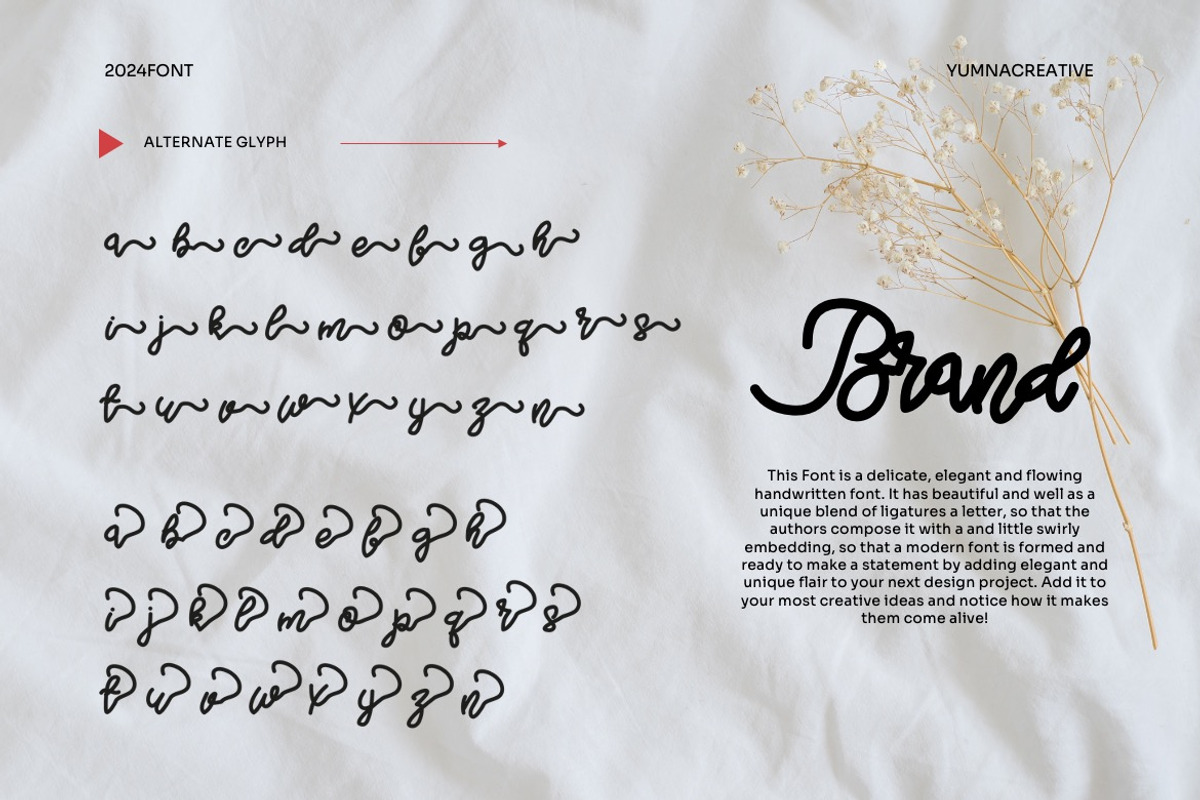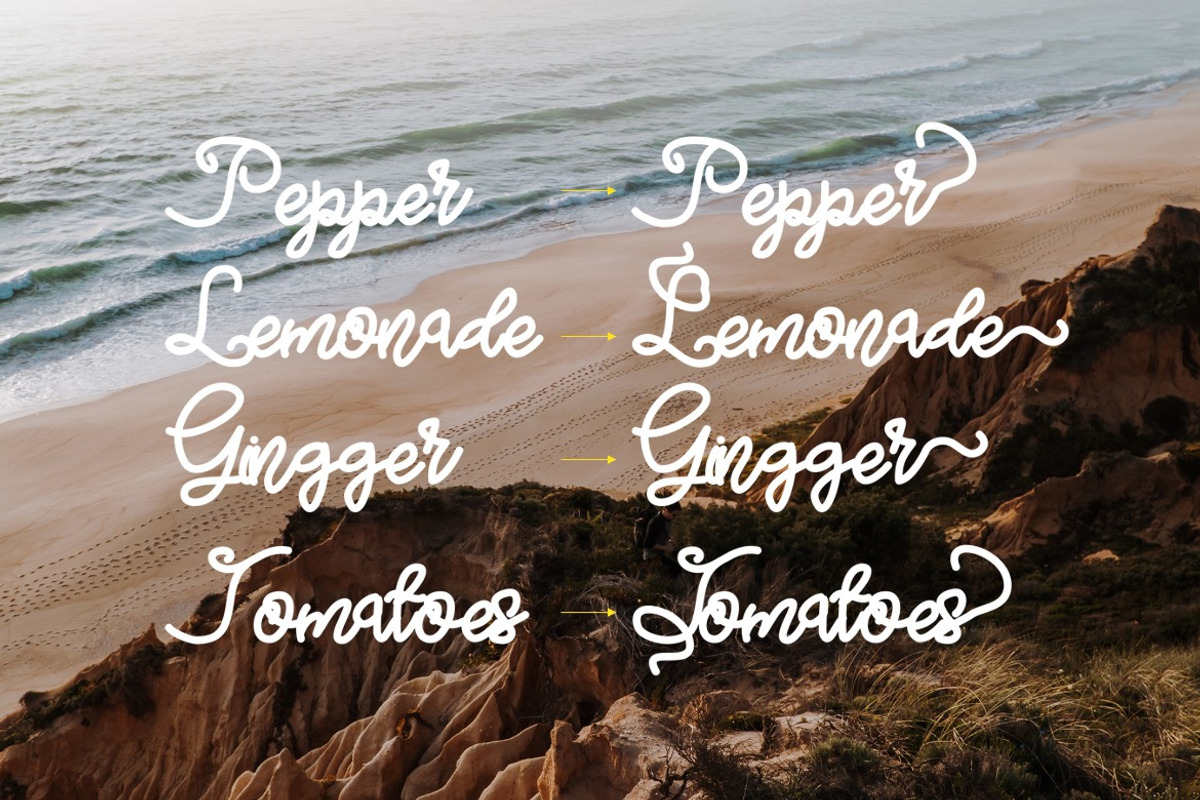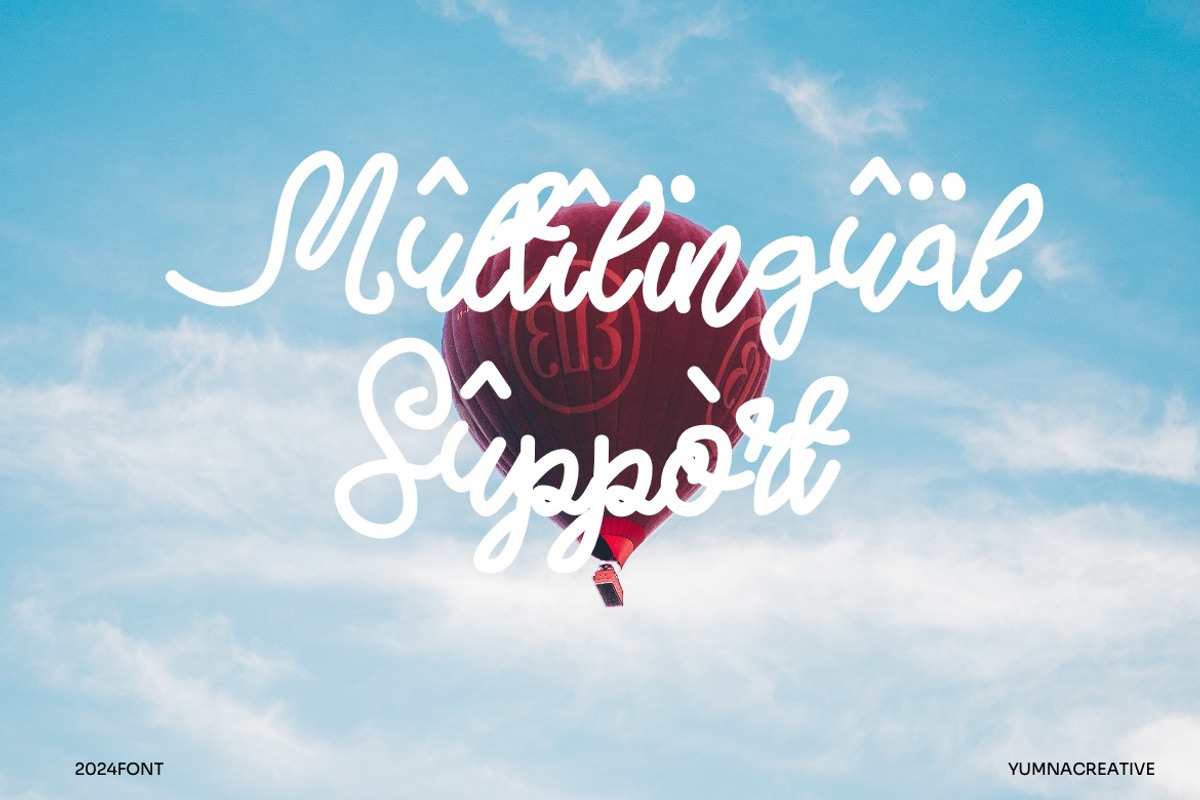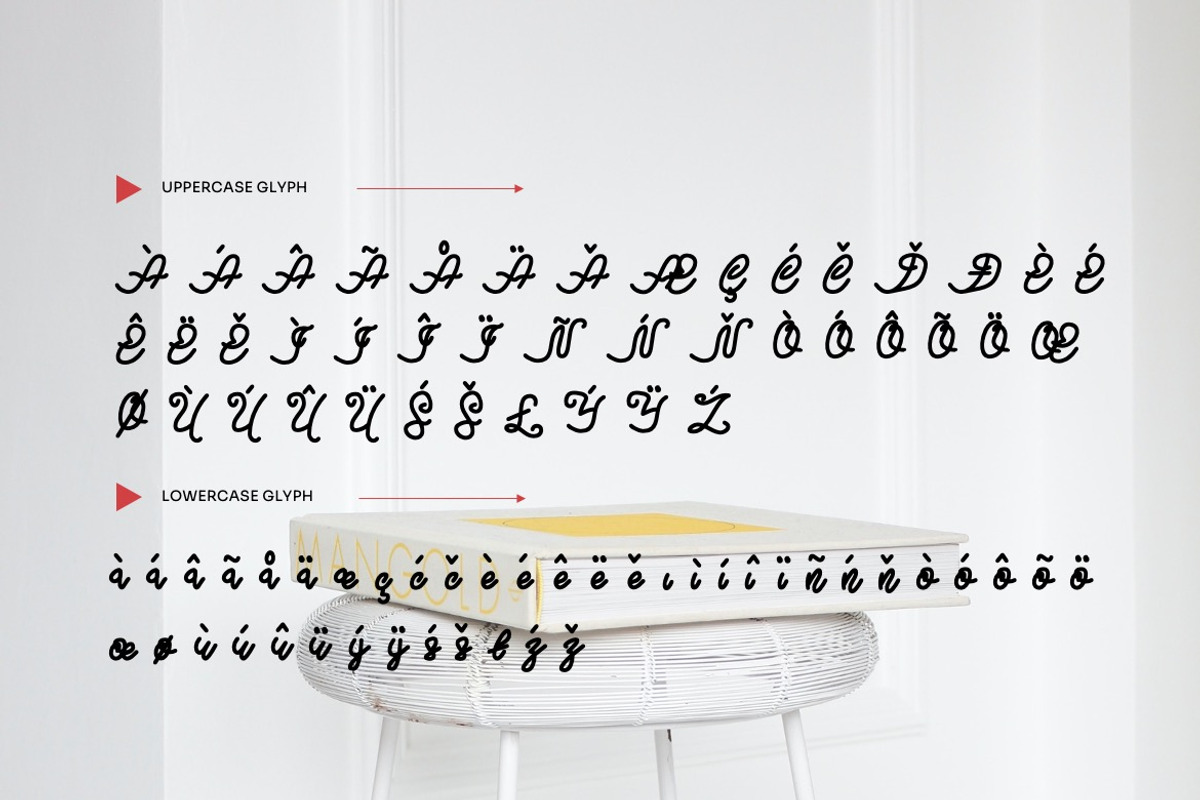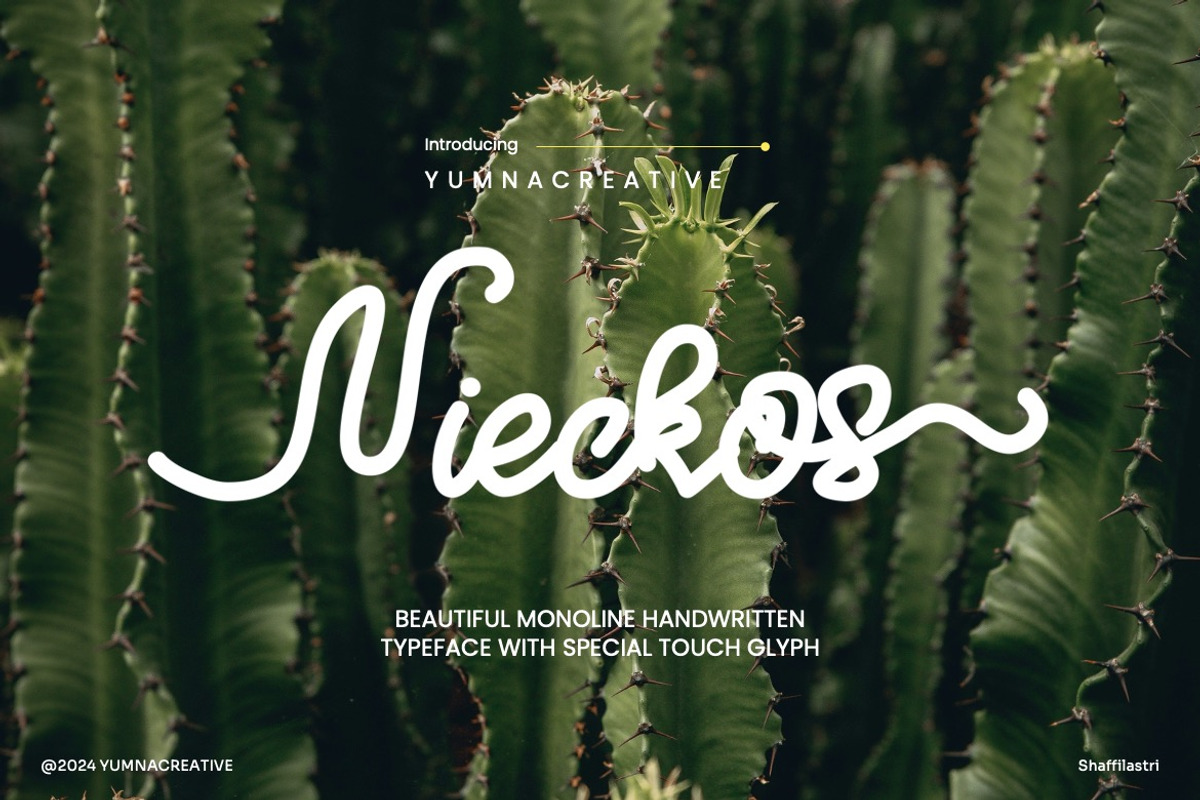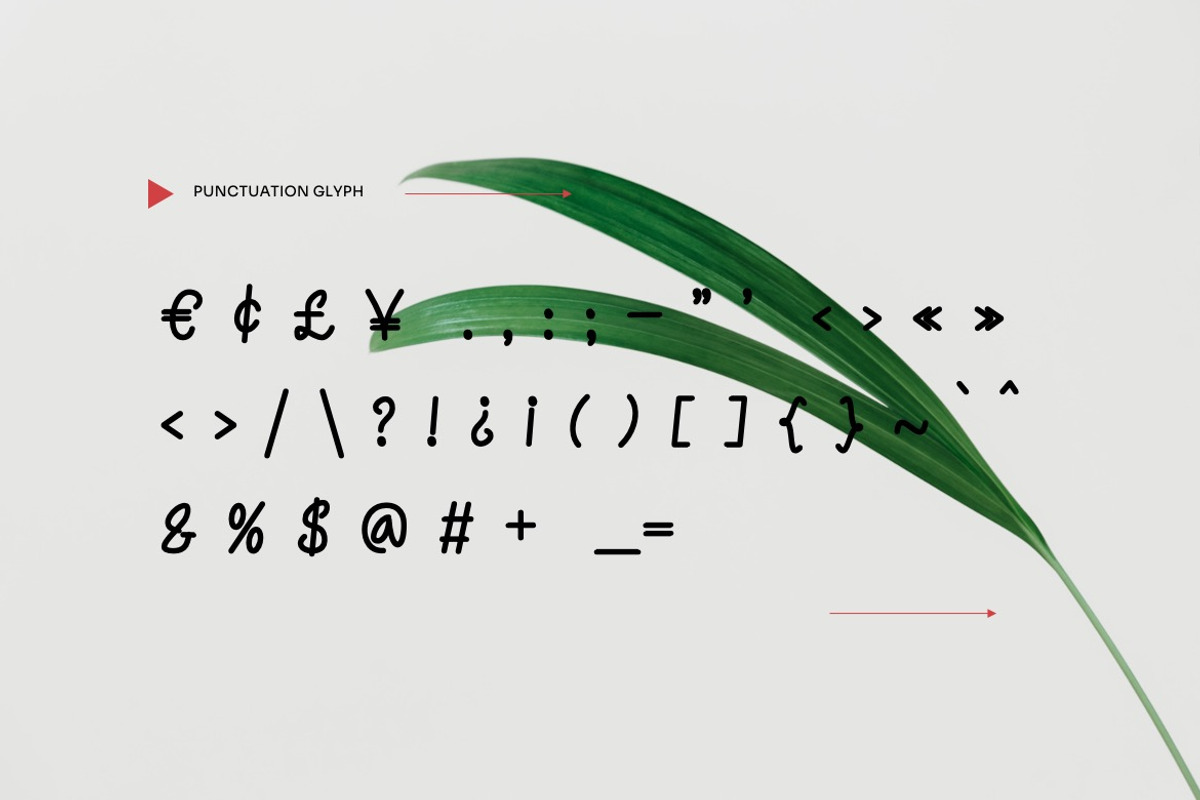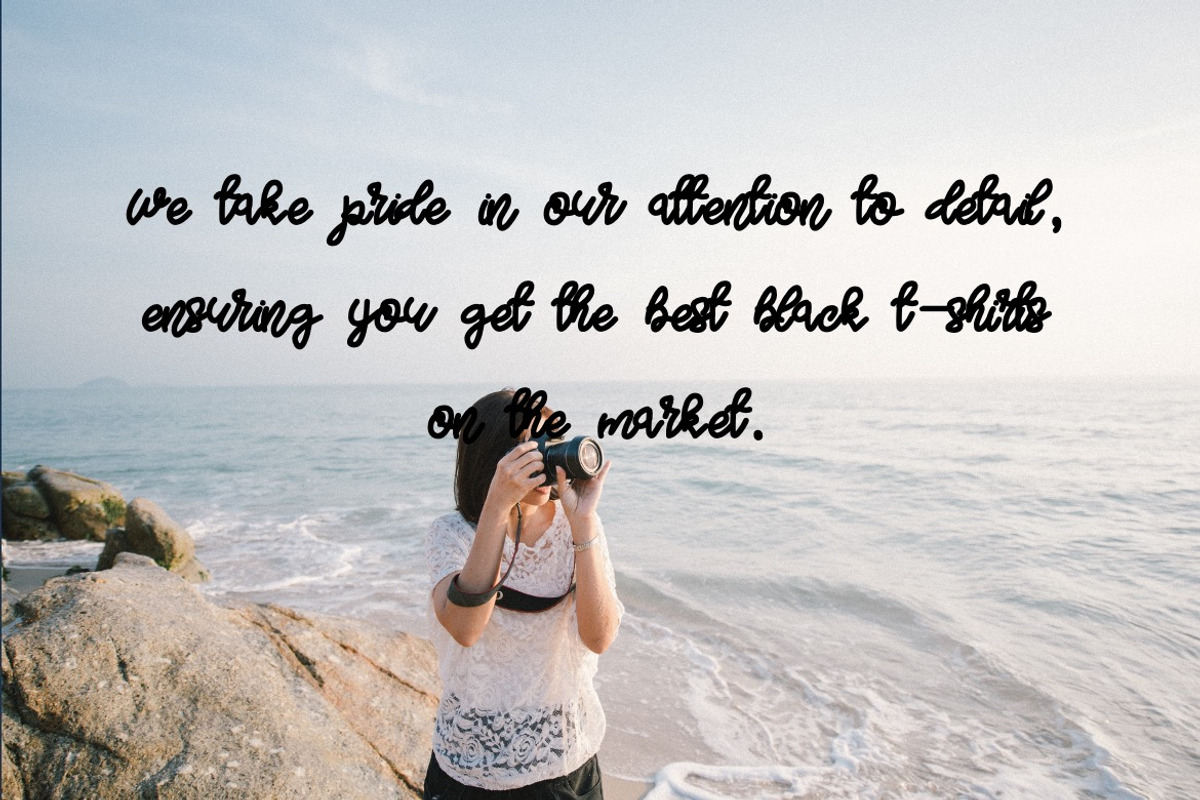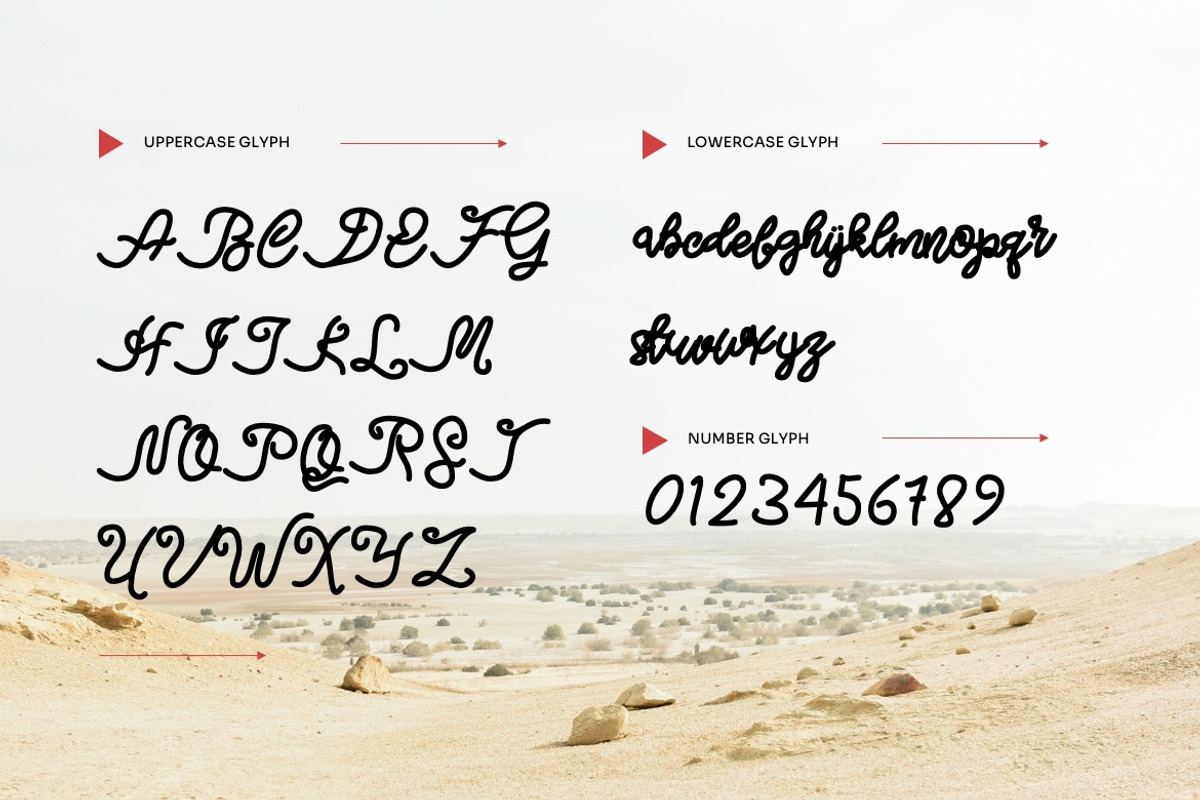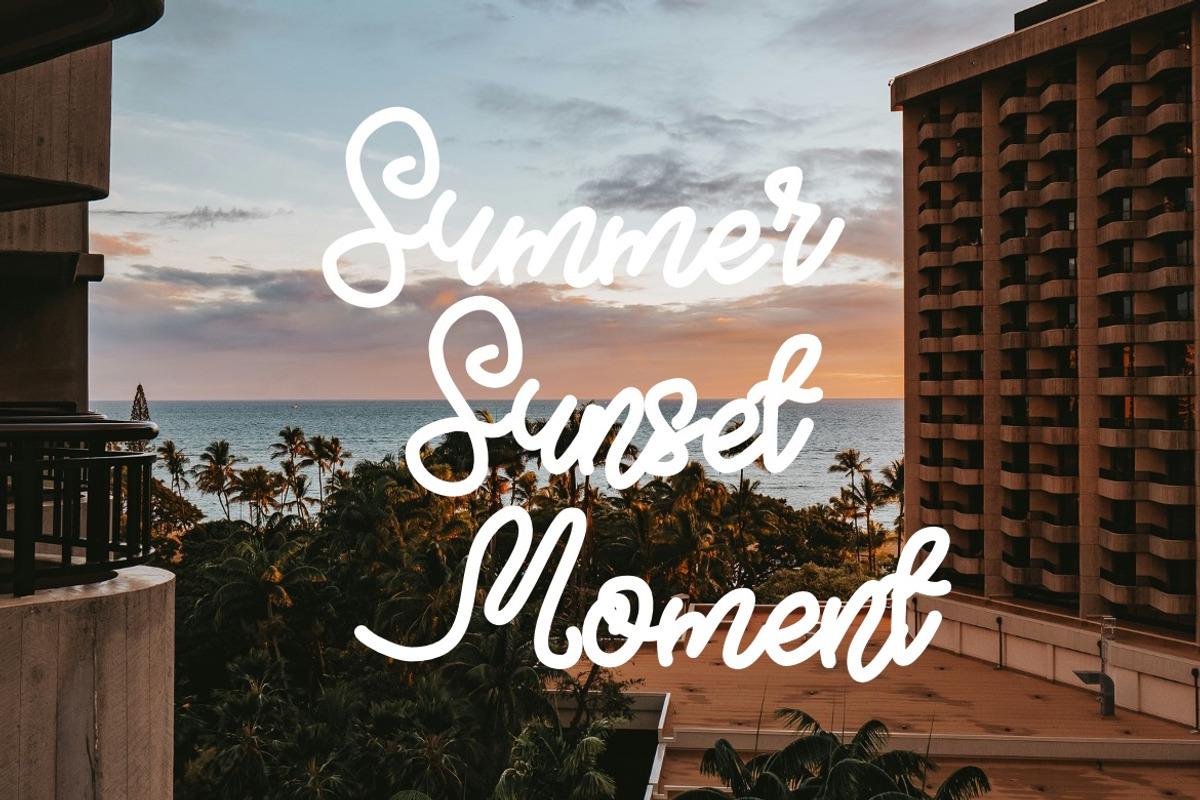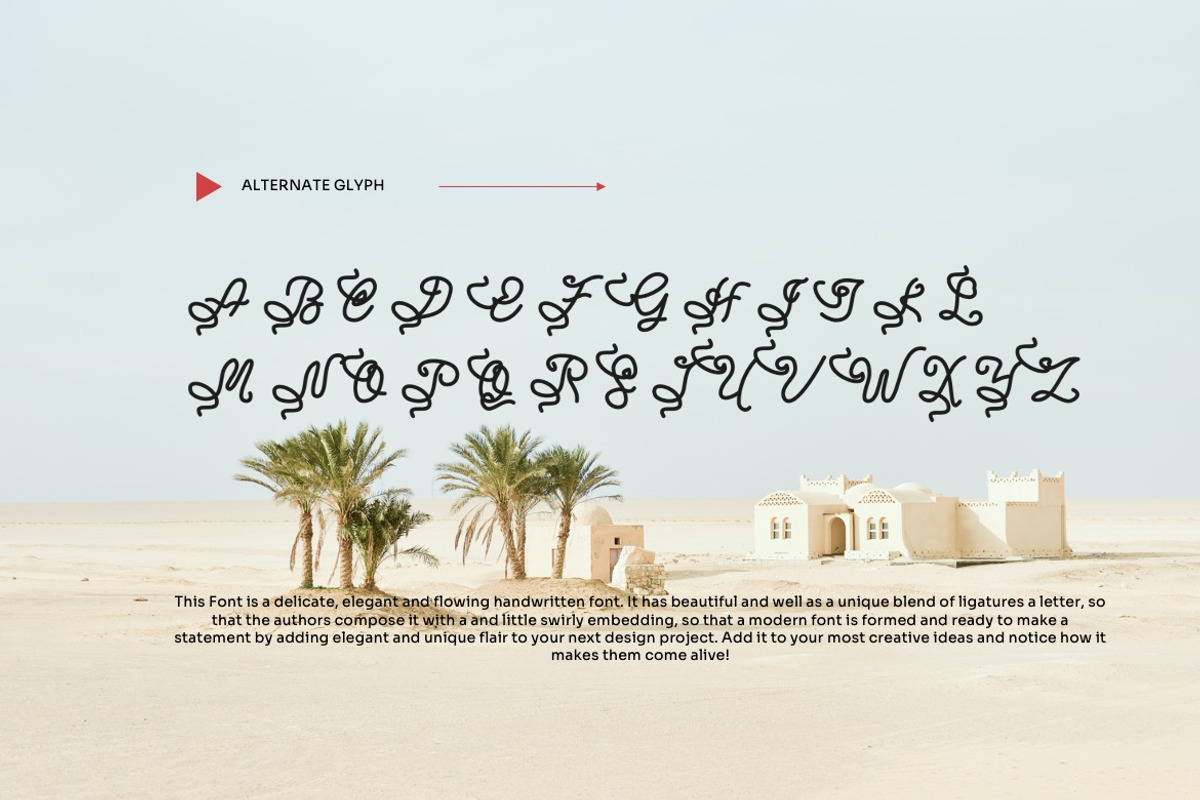
Nieckos - Monoline Handwritten Font
Introducing Nieckos - Monoline Handwritten Font
This Font is a delicate, elegant and flowing handwritten font. It has beautiful and well as a unique blend of ligatures a letter, so that the authors compose it with a and little swirly embedding, so that a modern font is formed and ready to make a statement by adding elegant and unique flair to your next design project. Add it to your most creative ideas and notice how it makes them come alive!
• Alternate